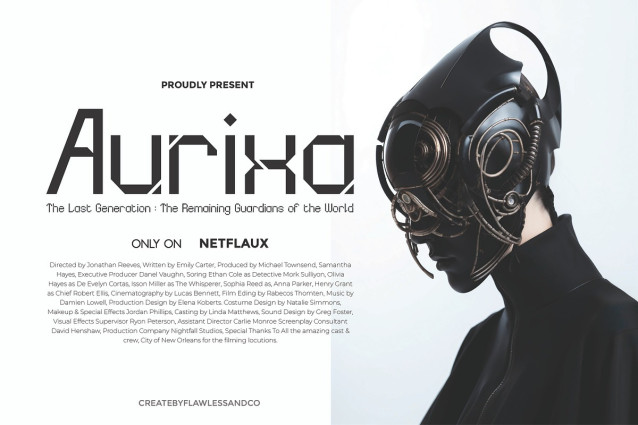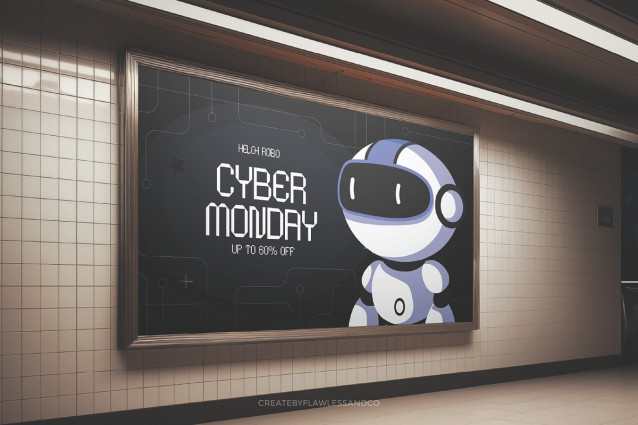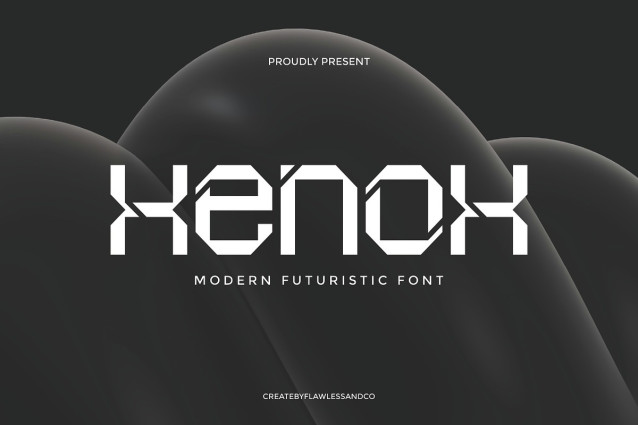
Xenox Futuristic Font
Xenox Futuristic Font is a modern futuristic font that blends minimalism with high-tech precision. Designed with clean geometry and contemporary structure, Xenox offers a sleek, refined look perfect for forward-thinking branding and digital innovation. With its sharp lines, smooth curves, and balanced proportions, Xenox brings a futuristic tone without feeling overly stylized—making it ideal for technology brands, modern interfaces, digital ads, and lifestyle products that embrace the future. Xenox stands at the intersection of elegance and technology, giving your typography a confident and sophisticated edge. Features: